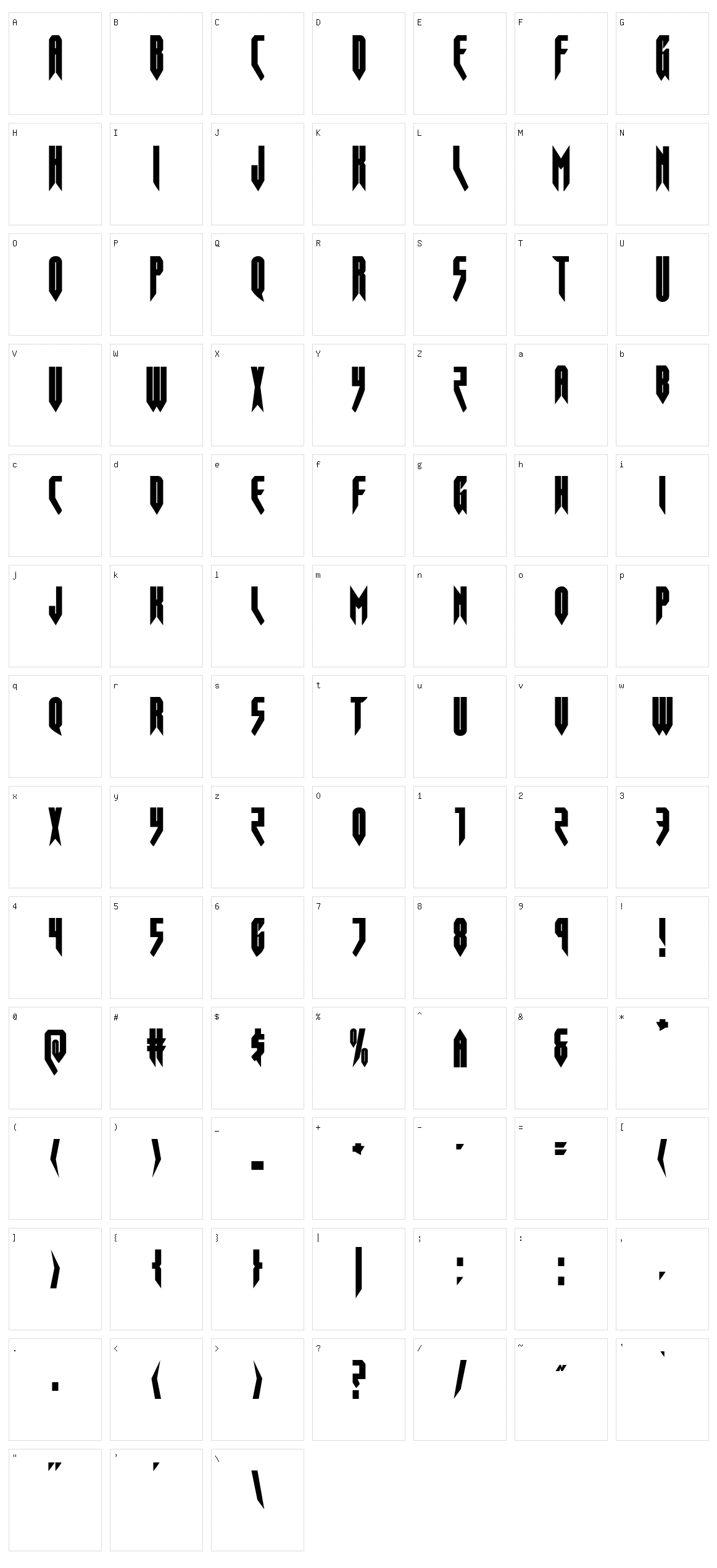
Opus Magnus
Description: The free font Opus Magnus is carefully designed by Iconian Fonts, showcasing a thoughtful balance of creativity and usability and belongs to the Gothic font family. When you download the ZIP file, it contains only 386.5 KB of font files, making it lightweight and quick to download. Please review the license details below to understand permitted usage and distribution rights. If license information is not available, we recommend using this font for personal projects only or contacting the author directly for commercial usage permissions.
This font comes with the following 16 versions: Regular, Italic, Condensed, Condensed Italic, Expanded, Expanded Italic, Outline, Outline Italic, Outline Condensed, Outline Condensed Italic, Laser, Laser Italic, Laser Condensed, Laser Condensed Italic, Leftalic and Rotalic.